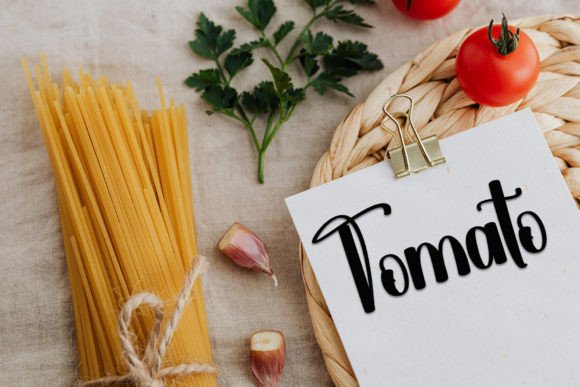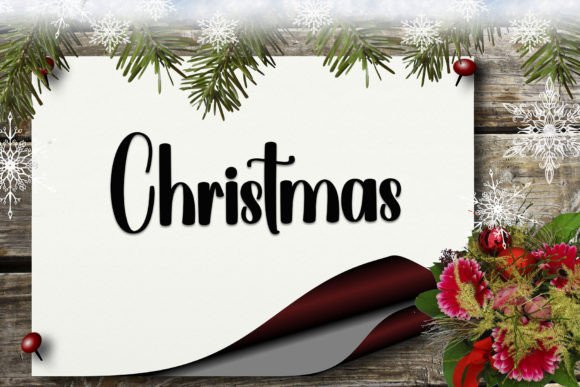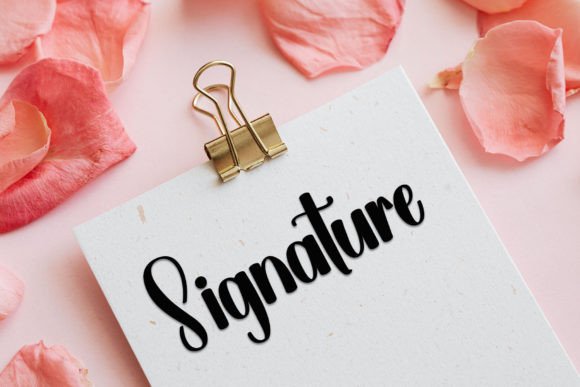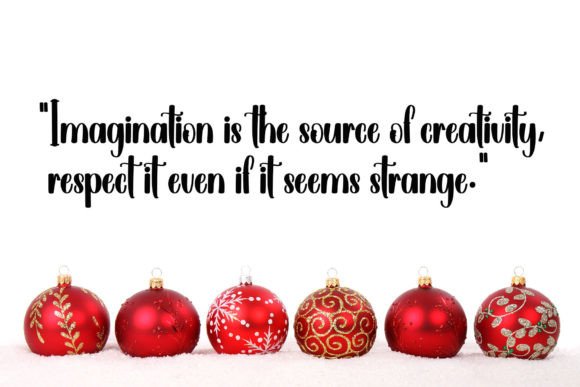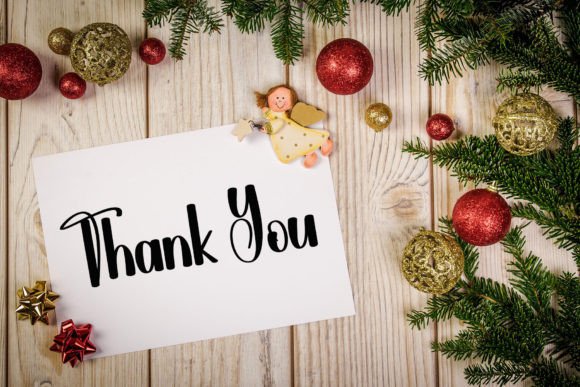
Crochet Font: Add a Touch of Holiday Cheer to Your Designs
Are you looking for a typeface that captures the spirit of the holiday season? Do you want to add a touch of charm and whimsy to your designs? Look no further than the Crochet Font! This festive and happy font is perfect for greeting cards, gift labels, and holiday-themed projects. In this article, we’ll explore the features and benefits of the Crochet Font and how it can elevate your designs.
A Festive and Happy Typeface
The Crochet Font is a unique and decorative typeface that embodies the joy and cheer of the holiday season. Its playful and nostalgic design makes it perfect for adding a touch of warmth and personality to your words. Whether you’re creating holiday cards, gift tags, or festive posters, this font is sure to bring a smile to your audience’s faces.
Decorative Elements and Unique Flair
One of the standout features of the Crochet Font is its decorative elements and unique flair. The font features intricate details and ornate flourishes that give it a truly special and eye-catching look. From the delicate swirls and curls to the playful glyphs and ligatures, every element of the Crochet Font has been carefully crafted to add a touch of magic to your designs.
The Crochet Font is specifically designed with holiday projects in mind. Its festive and cheerful design makes it perfect for:
- Greeting cards: Add a personal touch to your holiday cards with the Crochet Font’s playful and whimsical design.
- Gift labels: Make your gifts stand out with custom labels featuring the Crochet Font’s unique and decorative style.
- Holiday-themed projects: From festive posters to holiday-themed social media graphics, the Crochet Font is the perfect choice for adding a touch of holiday cheer to your designs.
The Crochet Font is PUA (Private Use Area) coded, which means that you can easily access all the amazing glyphs and ligatures. PUA coding allows you to access the font’s special characters and features using a keyboard shortcut or through a font editing software. This makes it easy to add a touch of personality and whimsy to your designs without having to manually create each element.
The Crochet Font offers a range of benefits for designers and crafters, including:
- Customizable: With PUA coding, you can easily access and customize the font’s glyphs and ligatures to fit your design needs.
- Versatile: The Crochet Font can be used for a range of holiday projects, from greeting cards to social media graphics.
- Unique: The font’s decorative elements and unique flair make it a standout choice for adding a touch of personality to your designs.
Tips for Using the Crochet Font
Here are a few tips for getting the most out of the Crochet Font:
- Experiment with different sizes and colors to find the perfect combination for your design.
- Use the font’s glyphs and ligatures to add a touch of personality and whimsy to your words.
- Pair the Crochet Font with other holiday-themed fonts or graphics to create a cohesive and festive design.
The Crochet Font is a festive and happy typeface that’s perfect for adding a touch of holiday cheer to your designs. With its decorative elements, unique flair, and PUA coding, this font is a must-have for designers and crafters looking to create special and eye-catching holiday projects. Whether you’re creating greeting cards, gift labels, or holiday-themed posters, the Crochet Font is sure to bring a smile to your audience’s faces. So why wait? Download the Crochet Font today and start adding a touch of magic to your designs!